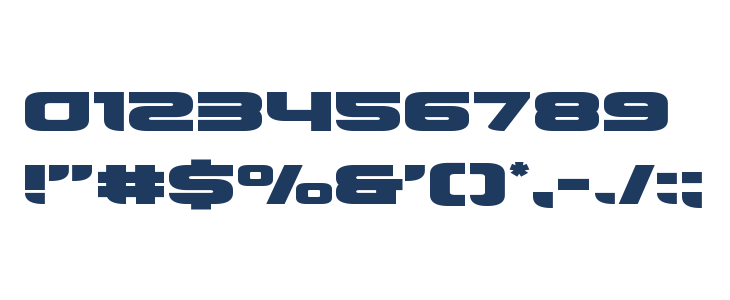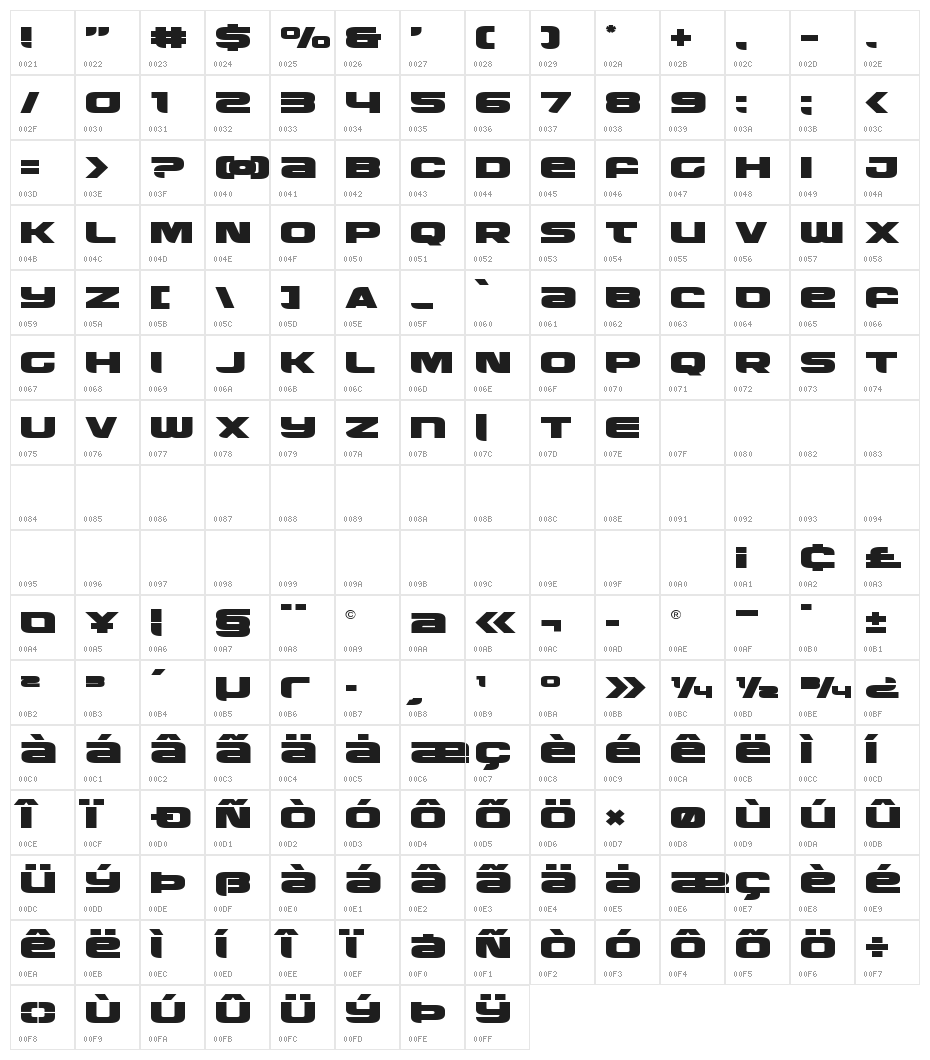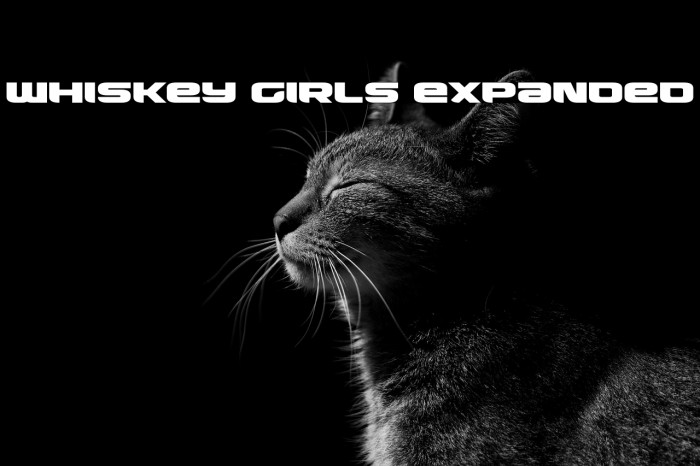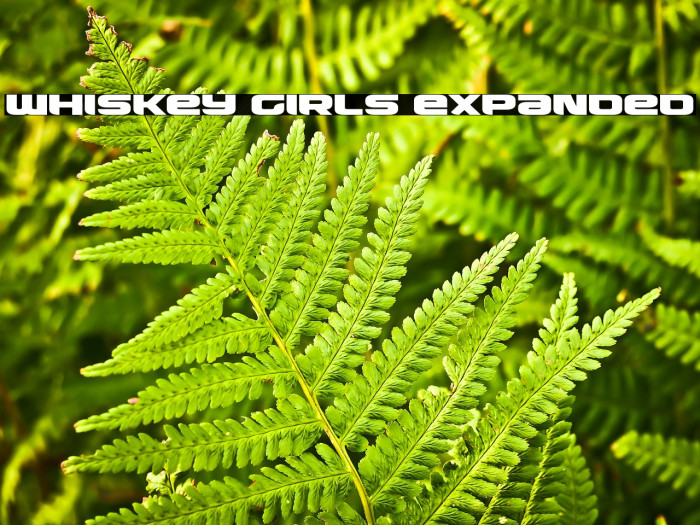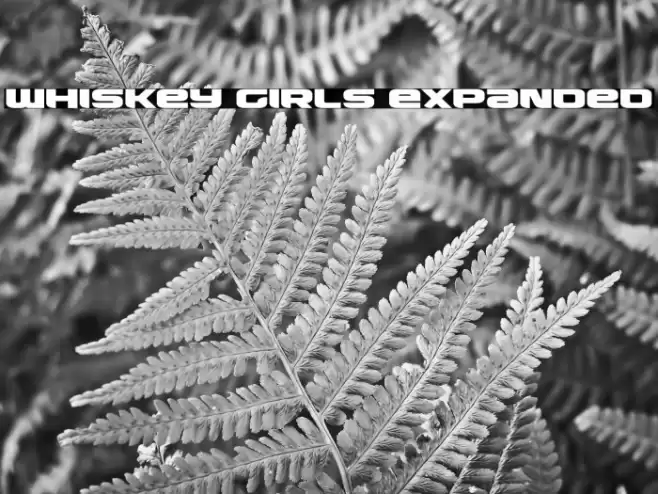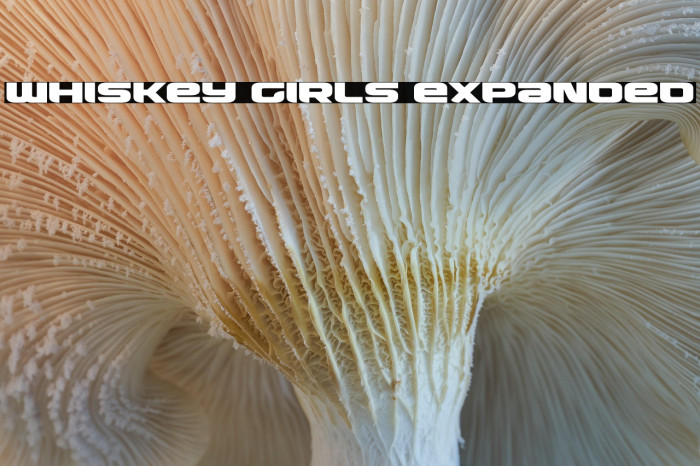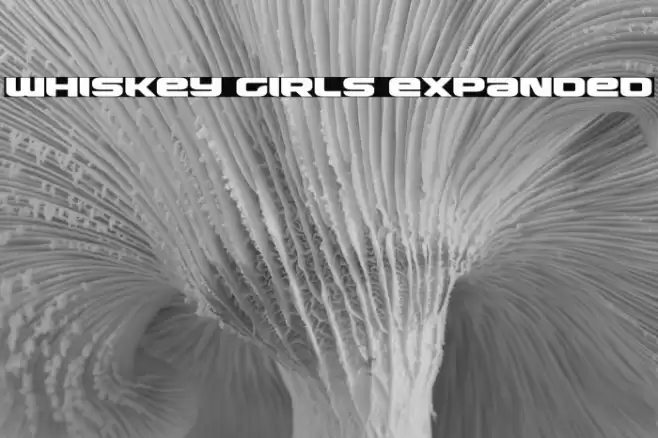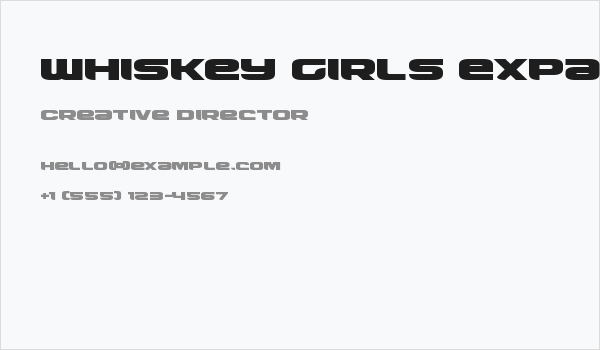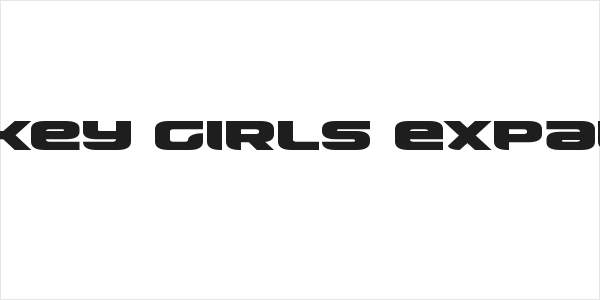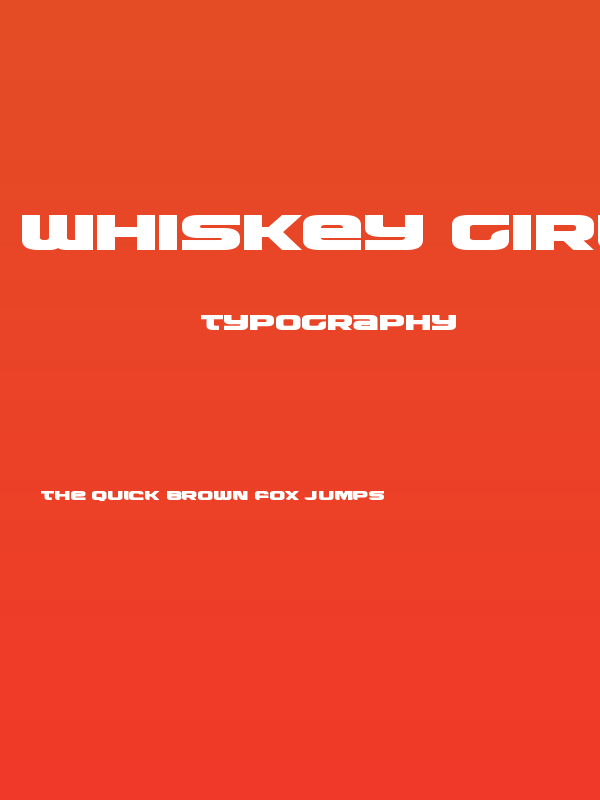
Whiskey Girls Expanded Font
Whiskey Girls Expanded Description
This font features a bold and expanded style with a modern, futuristic aesthetic. The characters are wide and have a strong presence, making them ideal for attention-grabbing designs. The uppercase and lowercase letters maintain a consistent width, contributing to a uniform appearance. The numerals and special characters are designed to match the boldness of the alphabet, ensuring cohesion across all text elements. The font's geometric shapes and smooth curves give it a sleek and polished look, suitable for contemporary projects.
| Proposed Projects | Ideal for branding, headlines, posters, and digital media where a strong, modern impact is desired. |